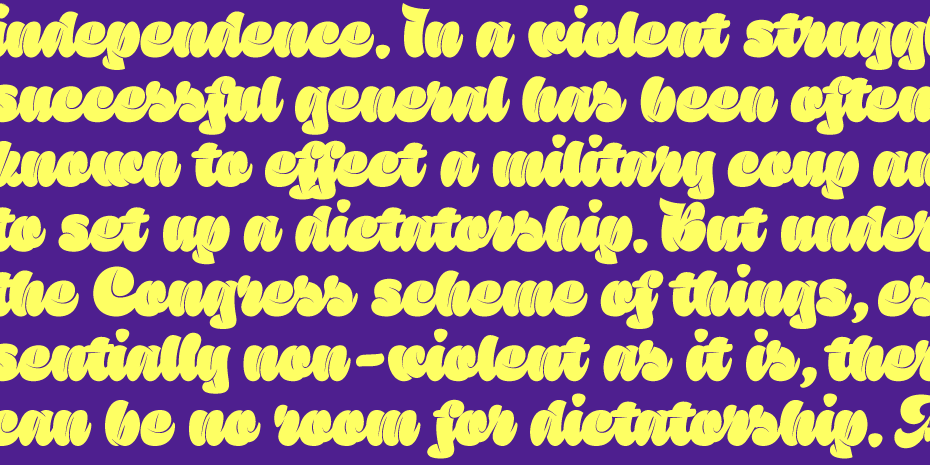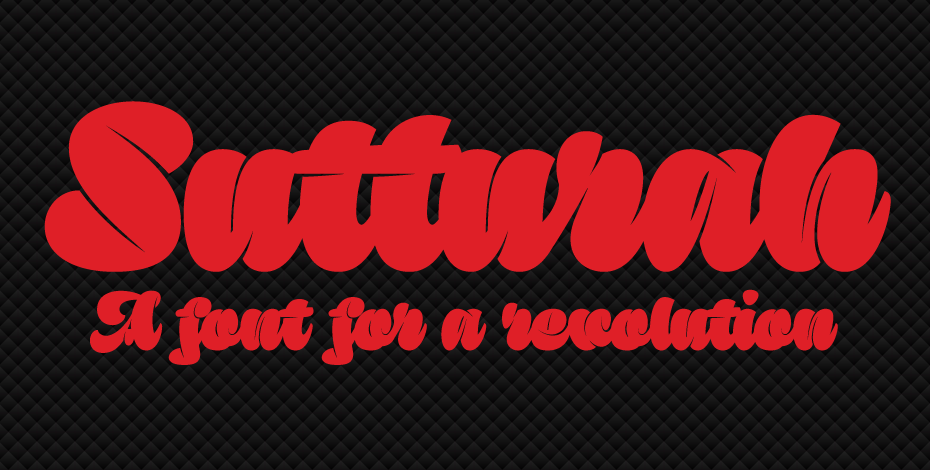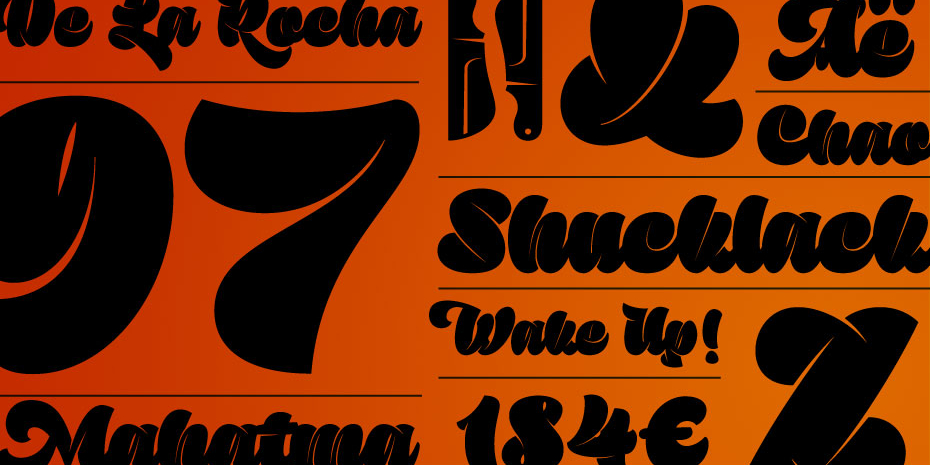
Sutturah
Sutturah is a brush display font published by Rosetta.
Sutturah is a display font intended for posters and display environments demanding high visual impact.
Originating from an exploration of new, radical text patterns, the font combines highly detailed and constructed shapes with a script-flavouring.
The design brings together varied influences – from gothic Fraktur to the ultrablack display, and high-contrast wood types.
Sutturah is informal and irreverent in its visual style.
Its strong character goes beyond the accepted conventions of letter-shape construction, quickly catching the eye and surprising the reader.
Sutturah is a display font intended for posters and display environments demanding high visual impact. Originating from an exploration of new, radical text patterns, the font combines highly detailed and constructed shapes with a script-flavouring. The design brings together varied influences – from gothic Fraktur to the ultrablack display, and high-contrast wood types. Sutturah is informal and irreverent in its visual style.
Its strong character goes beyond the accepted conventions of letter-shape construction, quickly catching the eye and surprising the reader. Its personality allows for the creation of stunning pieces of design without the need of any other elements – a single word in Sutturah can be worth a thousand images! Extra ligatures and swashes provide the designer even more possibilities to experiment with and add to the fun of using the typeface.